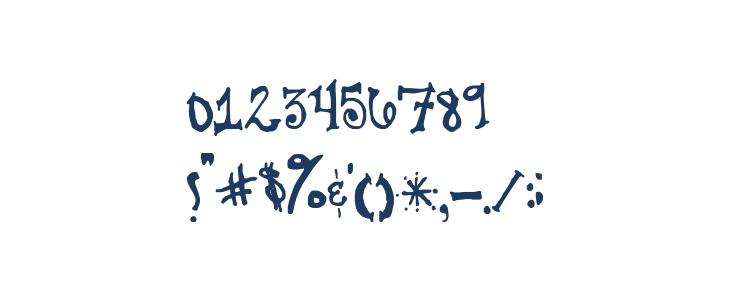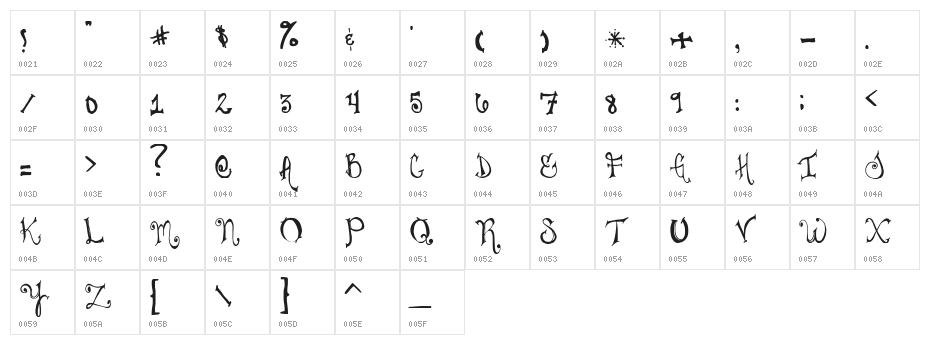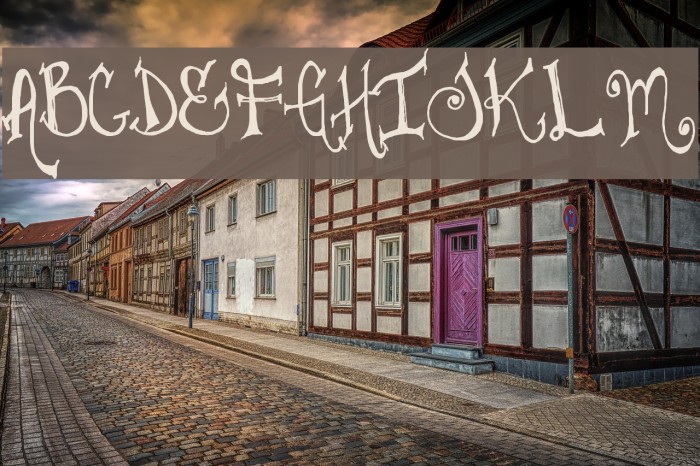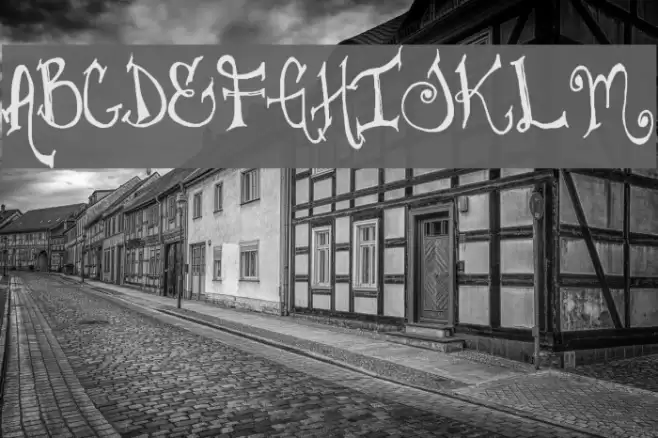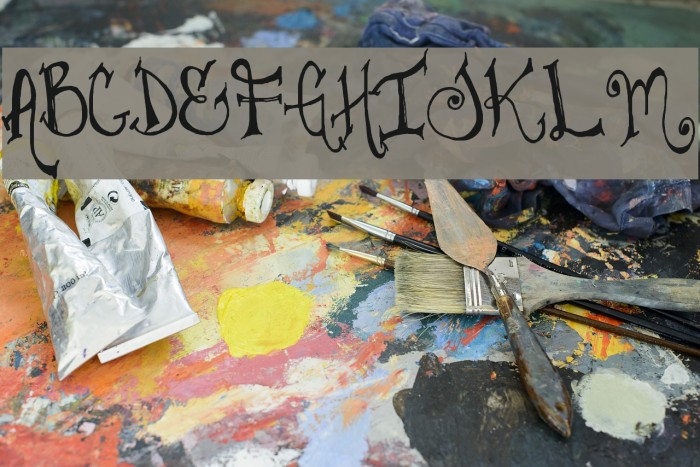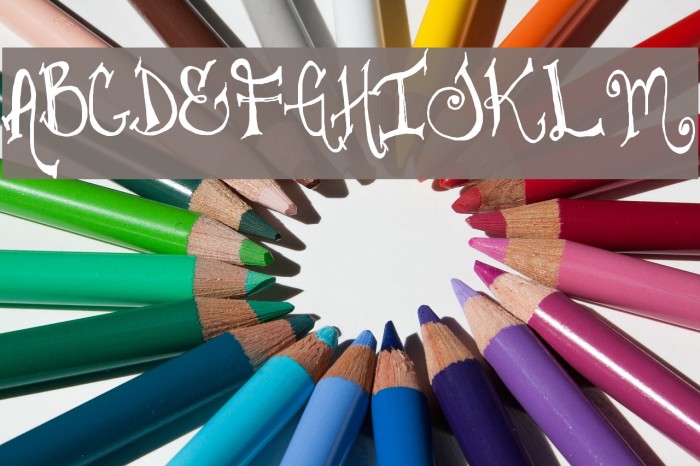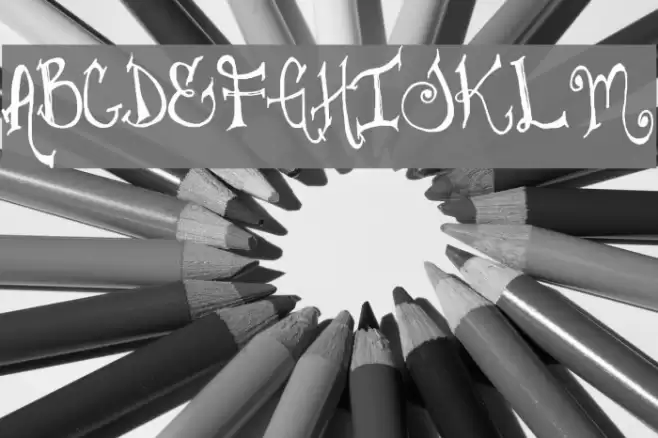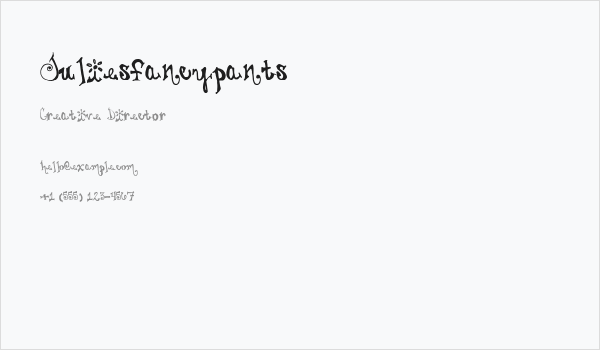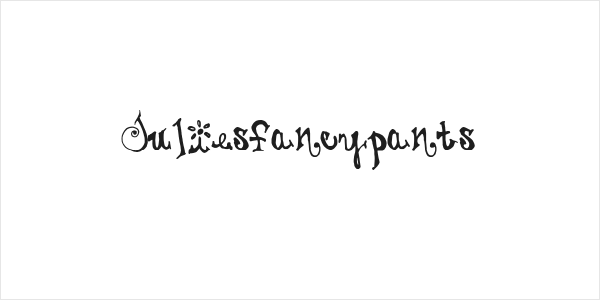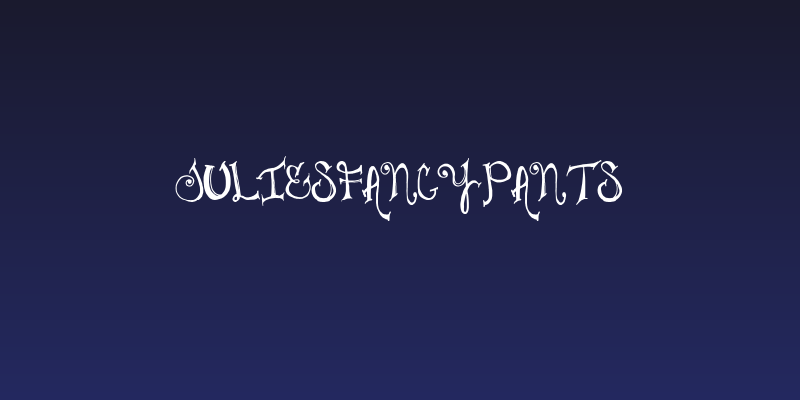
Juliesfancypants Font
Juliesfancypants Description
This font features a whimsical and playful design with a hand-drawn appearance. The characters are adorned with unique flourishes and embellishments, giving it a distinct and artistic flair. The uppercase letters are bold and prominent, while the lowercase letters maintain a consistent style with added decorative elements. Numbers and special characters follow the same artistic theme, making the font suitable for creative and informal projects. The overall look is both quirky and charming, perfect for adding a touch of personality to any design.
| Proposed Projects | Ideal for greeting cards, children's book covers, playful branding, and creative invitations. |